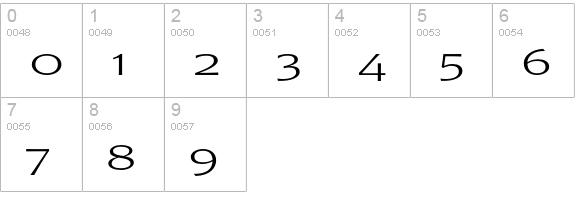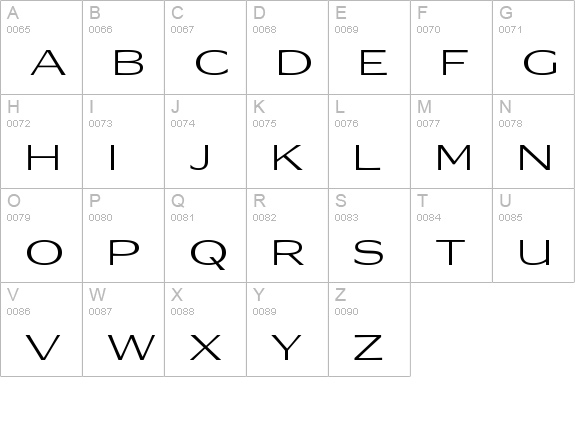
Luxury Platinum Font Details
Luxury Platinum font exudes elegance and sophistication with its sleek lines and luxurious design. This exquisite font is perfect for adding a touch of opulence to your projects, whether it's creating stunning logos, branding materials, or elegant invitations. The intricately crafted details of Luxury Platinum font make it a standout choice for those seeking a refined and upscale look. The best part? Luxury Platinum font is available for free download at FontsMarket.com, making it accessible to anyone looking to elevate their design projects with a touch of luxury. Don't miss out on the opportunity to add this stunning font to your collection and bring a touch of platinum brilliance to your creations. Download Luxury Platinum font today and let your designs shine with sophistication and style.